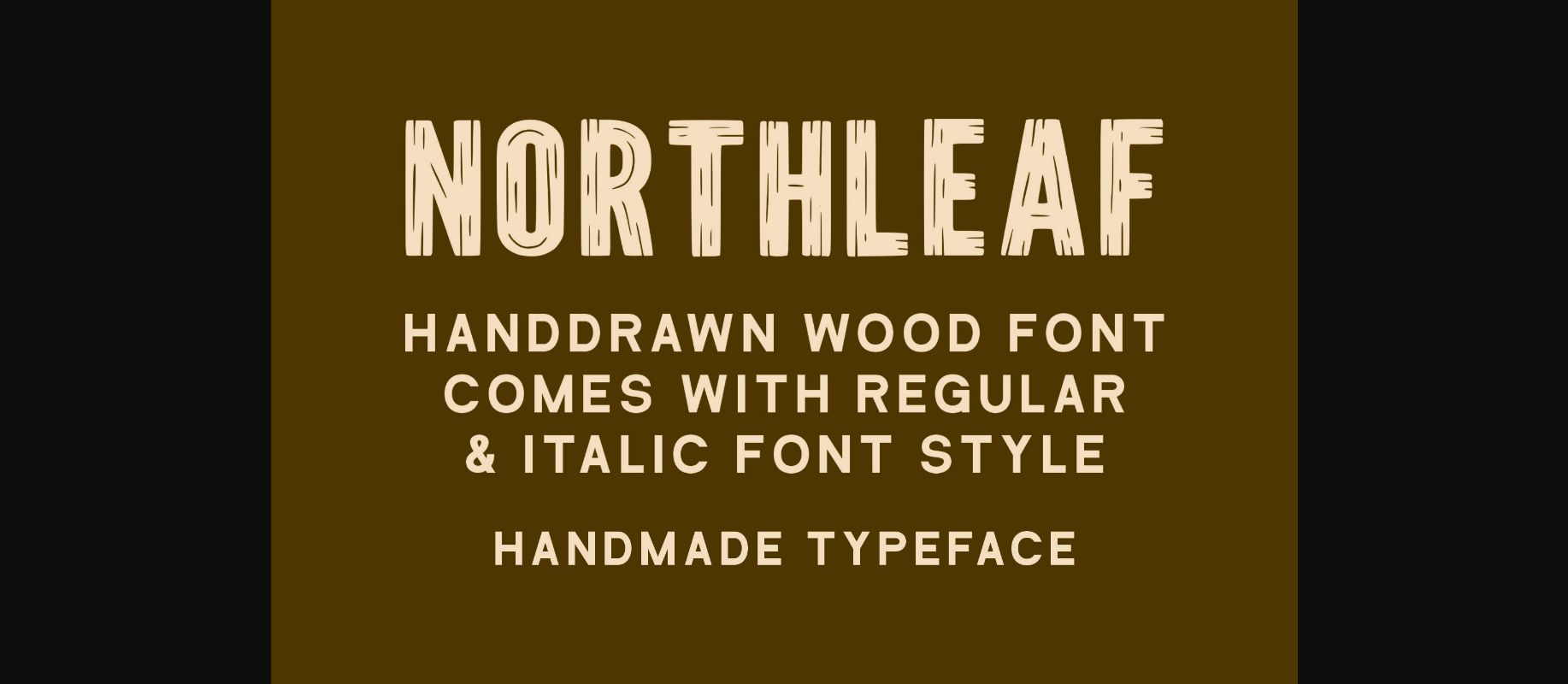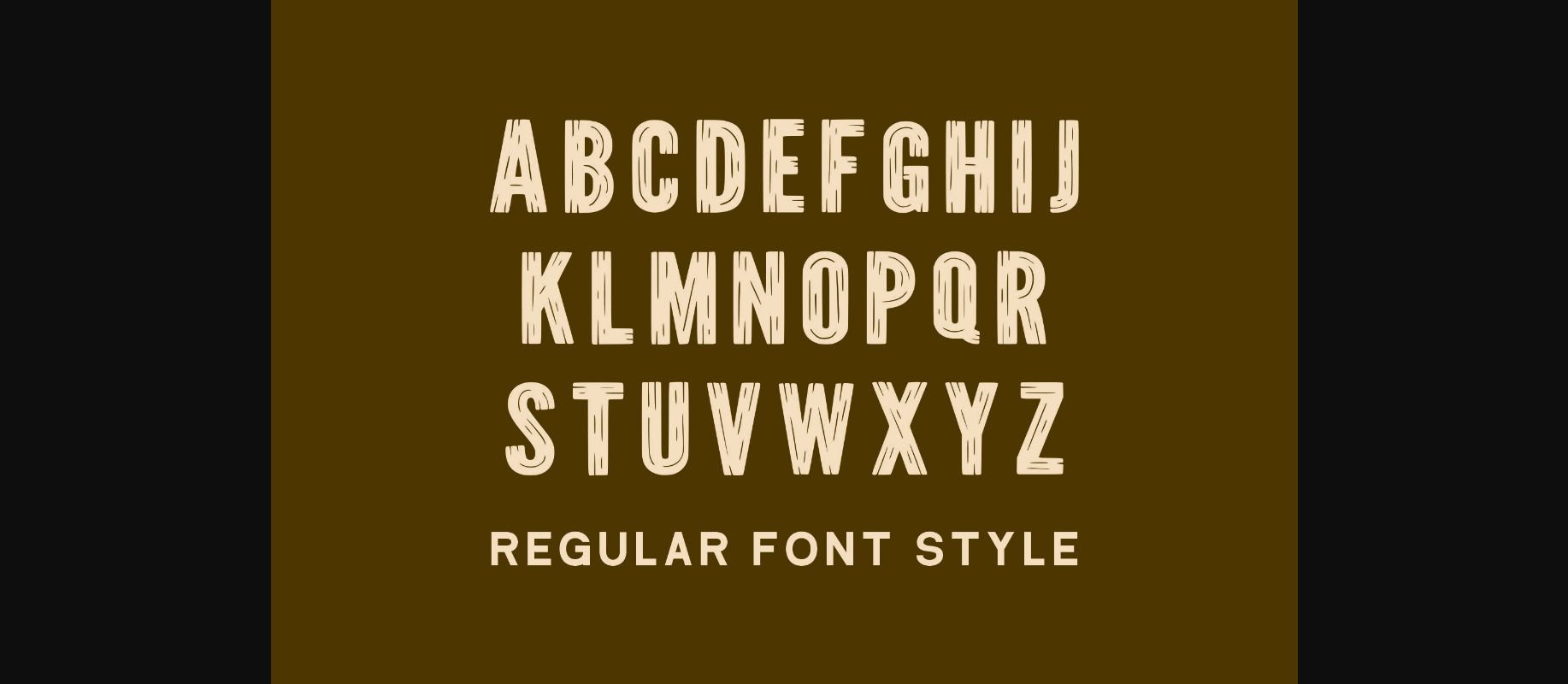
About Northleaf Font
Northleaf is a simple, vintage-styled, and incredibly minimalist display font. It will look stunning on any vintage poster, digital vintage style, or print.